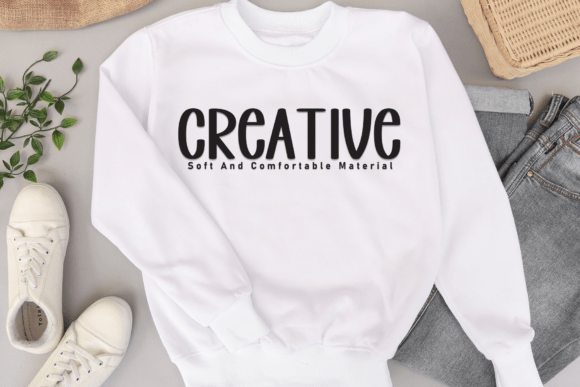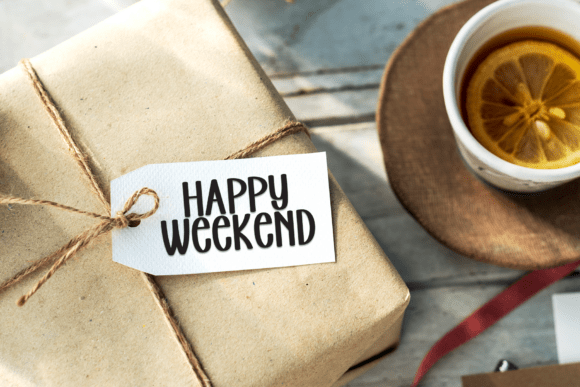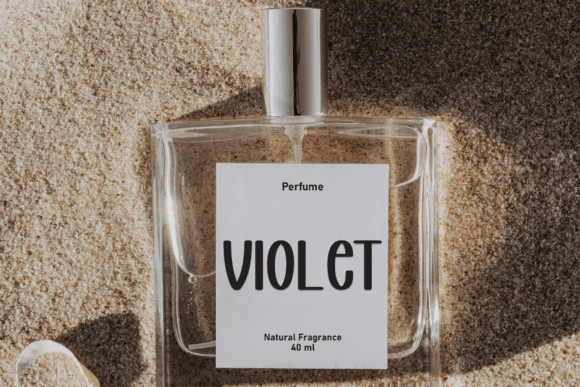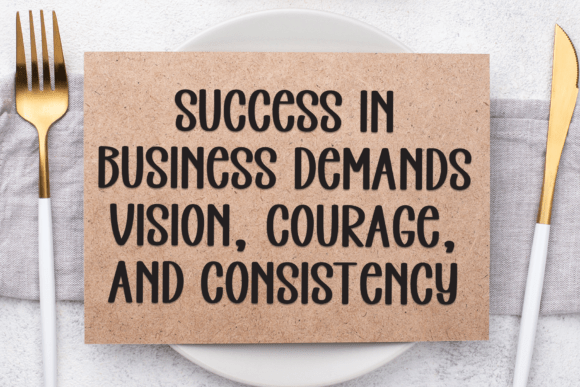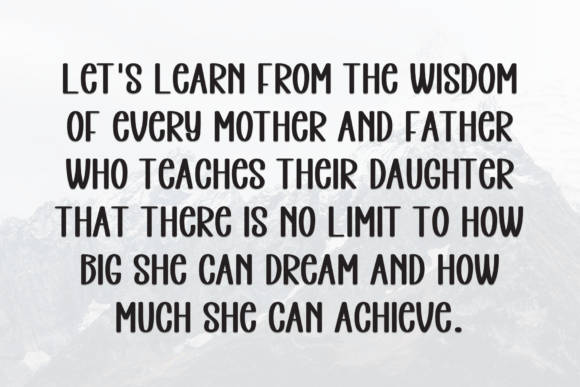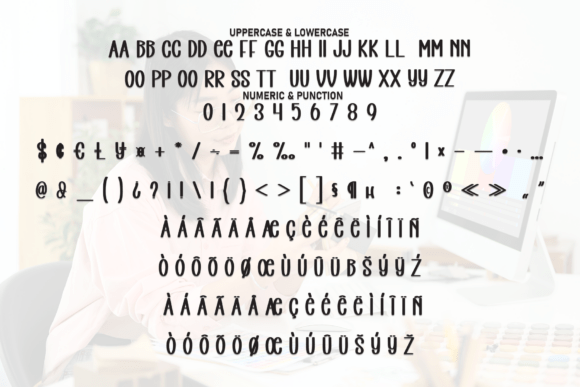
The Art of Typography: Unlocking the Magic of the Designer Font
Have you ever been in the midst of a creative project, staring blankly at your computer screen, searching for the perfect font to bring your vision to life? The blank page can be intimidating, but what if you had a secret weapon at your disposal – a font that not only elevates your design but also tells a story?
Enter the Designer Font, a masterfully crafted display font that exudes joy and charm. This elegant font is designed to be your perfect partner in creating unforgettable wedding invitations, stunning card layouts, and more. With its unique blend of craftsmanship and homely warmth, the Designer Font is a valuable asset for designers who crave originality and professionalism in their work.
Key Features of “Designer Font”
- Unique Characteristics: Features a distinctive blend of modern and classic elements, with intricate details and subtle nuances that add depth and visual interest.
Designer Font Review
Overall, I’m impressed with the modern aesthetic of “Designer Font”. The clean lines and sleek design make it perfect for creating a professional and sophisticated look for any project.
What works well: ✨ Elegant and versatile design that can be used for a wide range of applications, from logos to brochures. ✨ Excellent legibility, even at smaller font sizes. ✨ The font is highly customizable, allowing for a range of weights and styles to be used.
- ⚠️ The font may not be suitable for display use at very large sizes, as it can become too thin and difficult to read.
- ⚠️ The font family is not extensive, with only a few weights and styles available.
- ⚠️ Some users may find the font too minimalist, lacking the ornate details and flourishes that are common in more traditional font designs.
Overall, I think “Designer Font” is a great choice for designers who want a clean and modern look without sacrificing legibility or versatility. While it may not be the best choice for every project, it’s a solid addition to any designer’s toolkit.
Practical Application Guide for Designer Font
Experiment with different font sizes, colors, and styles to create visually appealing designs. Use the Designer Font in combination with other design elements, such as images and graphics, to create a cohesive look. Consider using the font in a limited capacity to avoid overwhelming the design.
The Designer Font is ideal for use in branding, marketing materials, and creative projects. It’s perfect for creating eye-catching headlines, titles, and captions. Use it to add a touch of elegance and sophistication to your designs.